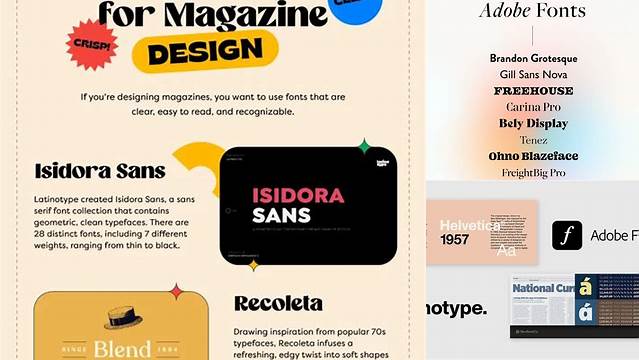
Top Adobe Fonts For Editorial Design
Hey guys! Choosing the right fonts is super important in editorial design. It's not just about making things look pretty; it’s about making the content readable and engaging. Let's dive into some of the best Adobe fonts that can really elevate your editorial projects. We’ll cover everything from classic choices to modern twists, so you can find the perfect fit for your next magazine, book, or online publication.
1. Serif Fonts for Editorial Excellence
Serif fonts, with their little feet or strokes at the ends of the letters, are classic choices for editorial design. They bring a sense of tradition, elegance, and readability, especially in large blocks of text. When you're looking for that timeless appeal, you really can't go wrong with a well-chosen serif. For example, think about those long articles in a magazine – a good serif font makes them so much easier on the eyes. In editorial design, the right serif font can communicate authority and trustworthiness, making your content more credible and engaging. Some of the most renowned serif fonts in the Adobe Fonts library include names like Adobe Garamond Pro, which exudes sophistication and readability. Another fantastic option is Minion Pro, known for its versatility and clean lines, making it suitable for various editorial contexts. Times New Roman, though ubiquitous, remains a strong contender due to its familiarity and legibility. These best Adobe fonts each have their unique characteristics, from the classic, humanist feel of Garamond to the contemporary, adaptable nature of Minion. Editorial design professionals often mix serif fonts in headlines with sans-serif fonts in body text to create visual contrast and hierarchy. However, using serifs for body text often provides a smoother reading experience for longer articles, essays, or books. Editorial excellence is achieved by ensuring that your choice of fonts not only aligns with the content's tone but also serves to enhance the reader’s engagement and comprehension. So when you're working on your next editorial project, consider the power of serif fonts to bring a touch of class and clarity.
2. Sans-Serif Fonts for Modern Editorial Layouts
Sans-serif fonts, those sleek characters without the extra strokes, are incredibly popular for modern editorial layouts. They bring a clean, contemporary feel that works wonders for a variety of projects. If you're aiming for a design that feels fresh and up-to-date, sans-serif fonts are definitely your go-to. In editorial design, sans-serif fonts excel in headlines, subheadings, and shorter blocks of text, where their clarity and simplicity shine. They’re also fantastic for digital platforms, making web articles and online magazines look sharp and professional. Some top picks from Adobe Fonts in this category include Proxima Nova, a versatile and widely-used option that works beautifully across different mediums. Another excellent choice is Montserrat, known for its geometric design and readability. Roboto, a Google font available on Adobe Fonts, offers a clean and modern aesthetic perfect for digital content. The best Adobe fonts in the sans-serif family provide a range of options, from the sleek and minimalist to the more rounded and friendly. In editorial design, the key is to choose a font that complements your content and enhances readability. For instance, a bold sans-serif font can make a striking headline, while a lighter weight can be used for captions or callouts. Sans-serif fonts are also great for creating visual hierarchy, helping readers quickly navigate through the page. When selecting a sans-serif font, think about the overall tone you want to convey. A geometric sans-serif like Futura might give a more technical or corporate feel, while a humanist sans-serif like Open Sans can add warmth and approachability. Experiment with different combinations and weights to see what works best for your specific project. Sans-serif fonts are essential tools for achieving a modern, readable, and engaging editorial design.
3. Slab Serif Fonts: Bold Statements in Print
Slab serif fonts, characterized by their bold, block-like serifs, make powerful statements in print. They're the fonts that command attention and bring a distinct personality to your editorial projects. When you need to convey authority, confidence, or a touch of vintage charm, slab serifs are an excellent choice. In editorial design, slab serifs shine in headlines, titles, and other prominent text elements. Their strong visual presence ensures they don’t get lost in the mix, making them perfect for drawing readers' eyes to key information. A great example of a slab serif from Adobe Fonts is Roboto Slab, which balances a modern feel with the robustness of a slab serif. Another notable option is Arvo, known for its geometric design and high readability, even in smaller sizes. The best Adobe fonts in the slab serif category offer a range of styles, from the more traditional to the contemporary. Using slab serifs effectively in editorial design means understanding their strengths. They're not typically used for long blocks of body text, as their heavy serifs can become tiring to read over extended periods. Instead, they work best in shorter bursts where their impact can be fully appreciated. For instance, consider using a slab serif for the main headline of an article, paired with a cleaner serif or sans-serif for the body text. This combination creates a visually appealing contrast while maintaining readability. Slab serifs are also fantastic for magazine covers, posters, and other materials where making a bold impression is crucial. When selecting a slab serif, think about the overall tone and message of your design. A heavier, more geometric slab serif might convey strength and stability, while a lighter, more refined option could suggest sophistication and elegance. Ultimately, slab serif fonts are powerful tools for adding character and emphasis to your editorial layouts.
4. Script Fonts for Elegant Touches
Script fonts, with their flowing, handwritten styles, add elegant touches to editorial design. They bring a sense of personality, warmth, and sophistication, making them perfect for projects that need a human touch. If you're aiming to create an inviting and stylish feel, script fonts can be your secret weapon. In editorial design, script fonts are best used sparingly to highlight key elements. Think of them as the decorative accents that complement the overall layout. They shine in invitations, headings, quotes, and other short bursts of text where their unique character can be fully appreciated. Adobe Fonts offers a variety of script fonts, each with its own distinct flavor. One popular choice is Brush Script MT, known for its lively and informal strokes. Another elegant option is Pacifico, a flowing script that adds a touch of retro charm. For something more modern, consider using a cleaner script like Playfair Display SC, which offers a balance of elegance and readability. The best Adobe fonts in the script category provide a wide range of styles, from the traditional calligraphic to the more contemporary and whimsical. Using script fonts effectively in editorial design means understanding their limitations. They're not ideal for body text, as their ornate nature can make them difficult to read in large blocks. Instead, use them strategically to draw attention to specific areas of your design. For instance, a script font can make a beautiful heading for a feature article or add a personal touch to a pull quote. When selecting a script font, think about the overall tone and message of your project. A formal script might be perfect for a wedding invitation, while a more casual script could work well for a lifestyle magazine. Experiment with different pairings and combinations to find the perfect balance. Script fonts are powerful tools for adding elegance and personality to your editorial layouts, as long as they're used thoughtfully and intentionally.
5. Display Fonts: Making a Statement
Display fonts are the rockstars of the typography world, designed to make a statement. They’re the attention-grabbers, the head-turners, and the fonts you use when you want to create an impact. Think of them as the exclamation points of editorial design – bold, expressive, and impossible to ignore. In editorial design, display fonts are your go-to for headlines, titles, logos, and any other element that needs to stand out. They’re not meant for long blocks of text (imagine reading an entire article in a super quirky font – ouch!), but they’re perfect for those key moments where you need to capture the reader’s attention. Adobe Fonts has a fantastic selection of display fonts, ranging from the ultra-modern to the vintage-inspired. Some standouts include Bebas Neue, a tall, clean sans-serif that’s perfect for bold headlines, and Lobster, a retro-style script that oozes personality. For something more geometric, consider Montserrat Alternates, which offers a range of stylish options. The best Adobe fonts in the display category provide a vast playground for creativity. Using display fonts effectively in editorial design is all about balance. Because they’re so attention-grabbing, you want to use them sparingly and strategically. Pairing a bold display font with a simpler, more readable body font is a classic technique that ensures your design is both eye-catching and functional. Think about the message you want to convey and choose a display font that matches the tone. A playful, hand-drawn font might be perfect for a children’s magazine, while a sleek, modern font could be ideal for a tech publication. Display fonts are your secret weapon for adding flair and personality to your editorial projects, so don’t be afraid to experiment and have fun with them!
6. Pairing Serif and Sans-Serif for Contrast
Pairing serif and sans-serif fonts is like the classic combo in editorial design – it’s a technique that never goes out of style. This dynamic duo creates visual contrast, making your layouts more interesting and readable. Think of it as a way to guide the reader’s eye through the page, highlighting key information while maintaining a cohesive look. In editorial design, this pairing often involves using a serif font for body text and a sans-serif for headlines, or vice versa. The serif font provides a sense of tradition and readability for the main content, while the sans-serif adds a modern, clean touch to the headings. This contrast helps to break up the page and make it more engaging. Adobe Fonts offers endless possibilities for pairing. One popular combination is pairing a classic serif like Garamond with a clean sans-serif like Helvetica. Another great option is using a more contemporary serif like Merriweather with a geometric sans-serif like Montserrat. The best Adobe fonts for pairing are those that complement each other in terms of style and weight. Using serif and sans-serif fonts effectively in editorial design means understanding the nuances of each font. Consider the overall tone and message of your project. A more formal design might benefit from a traditional serif and a clean, understated sans-serif, while a more playful design could use a bolder sans-serif with a more whimsical serif. It’s also important to pay attention to the visual hierarchy. Use different font weights and sizes to create a clear distinction between headlines, subheadings, and body text. This helps readers quickly scan the page and find the information they need. Pairing serif and sans-serif fonts is a tried-and-true method for creating visually appealing and highly readable editorial layouts. It’s all about finding the right balance and letting the fonts work together to tell your story.
7. The Timeless Appeal of Garamond
Garamond is one of those fonts that never goes out of style. It’s like the little black dress of typography – elegant, versatile, and always appropriate. This serif font exudes a sense of classic sophistication, making it a top choice for editorial design projects that need a touch of timelessness. In editorial design, Garamond shines in books, magazines, and any publication that aims for a refined and authoritative look. Its delicate serifs and graceful curves make it incredibly readable, even in large blocks of text. Garamond is a true workhorse, equally at home in body copy as it is in headlines. There are several variations of Garamond available on Adobe Fonts, each with its own subtle nuances. Adobe Garamond Pro is a particularly popular choice, known for its meticulously crafted letterforms and exceptional readability. The best Adobe fonts like Garamond are those that have stood the test of time for a good reason. Using Garamond effectively in editorial design means appreciating its understated elegance. It pairs beautifully with a variety of sans-serif fonts, allowing you to create a balanced and harmonious layout. Consider using Garamond for your body text and a clean sans-serif like Helvetica or Arial for your headlines. This combination provides a classic contrast that’s both visually appealing and easy to read. Garamond is also a fantastic choice for projects that require a touch of formality, such as academic journals or high-end publications. Its timeless appeal and exceptional readability make it a reliable and sophisticated option for any editorial designer. Garamond is more than just a font; it’s a piece of typographic history, and it continues to be a cornerstone of excellent editorial design.
8. Helvetica: The King of Clean Design
Helvetica is often called the king of clean design, and for good reason. This sans-serif font is the epitome of simplicity and clarity, making it a favorite among designers worldwide. If you’re aiming for a modern, minimalist look, Helvetica is your go-to choice. In editorial design, Helvetica excels in headlines, subheadings, and short blocks of text. Its clean lines and neutral appearance make it incredibly versatile, working well in a wide range of projects. Helvetica is also a fantastic option for body text, especially in digital formats where its readability shines. Adobe Fonts offers several variations of Helvetica, including Helvetica Neue, which is a refined and updated version of the classic typeface. The best Adobe fonts like Helvetica are those that prioritize clarity and functionality. Using Helvetica effectively in editorial design means understanding its strengths. It’s a font that doesn’t try to steal the show; instead, it quietly enhances the content. Pair Helvetica with a serif font like Garamond or Times New Roman for a balanced and sophisticated look. This combination provides a clear visual hierarchy, with the serif font anchoring the body text and Helvetica providing a clean, modern contrast in the headlines. Helvetica is also a great choice for projects that require a sense of neutrality and objectivity, such as corporate reports or technical documents. Its clean lines and straightforward design make it easy to read and understand. In the world of editorial design, Helvetica is a true classic, and its enduring popularity is a testament to its timeless appeal and exceptional functionality.
9. The Versatility of Adobe Caslon Pro
Adobe Caslon Pro is the chameleon of fonts, fitting seamlessly into a wide range of editorial designs. This serif typeface is known for its versatility, readability, and elegant appearance, making it a go-to choice for many designers. If you need a font that can handle everything from body text to headlines, Adobe Caslon Pro is a fantastic option. In editorial design, Adobe Caslon Pro shines in books, magazines, and websites. Its classic proportions and refined details make it incredibly readable, even in long blocks of text. This font is also a great choice for projects that require a touch of sophistication and professionalism. Adobe Fonts offers Adobe Caslon Pro, a meticulously crafted version of the classic Caslon typeface. The best Adobe fonts like Adobe Caslon Pro are those that offer both beauty and functionality. Using Adobe Caslon Pro effectively in editorial design means taking advantage of its versatility. It pairs beautifully with a variety of sans-serif fonts, allowing you to create a balanced and harmonious layout. Consider using Adobe Caslon Pro for your body text and a clean sans-serif like Helvetica or Arial for your headlines. This combination provides a classic contrast that’s both visually appealing and easy to read. Adobe Caslon Pro is also a great choice for projects that require a touch of formality, such as academic journals or corporate reports. Its elegant appearance and exceptional readability make it a reliable and sophisticated option for any editorial designer. Adobe Caslon Pro is a font that truly embodies versatility, and its enduring popularity is a testament to its timeless appeal and exceptional functionality.
24. Kerning and Tracking: Fine-Tuning Typography
Kerning and tracking are the fine-tuning knobs of typography, allowing designers to perfect the spacing between letters and create a polished, professional look. These subtle adjustments can significantly impact readability and visual appeal, making them essential considerations in editorial design. In editorial design, kerning refers to the adjustment of space between individual pairs of letters. Certain letter combinations (such as